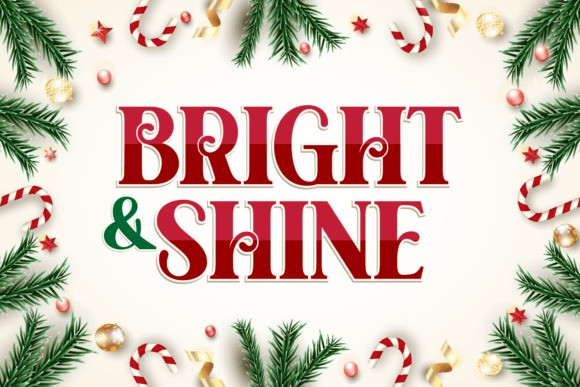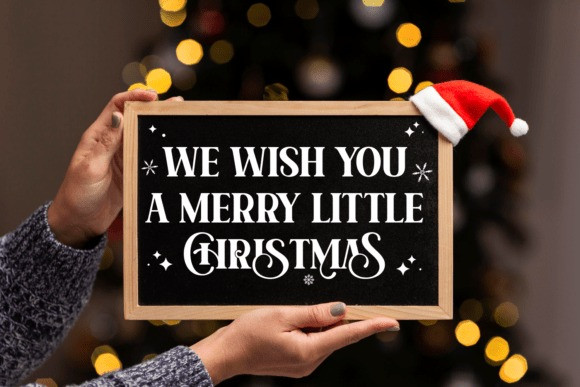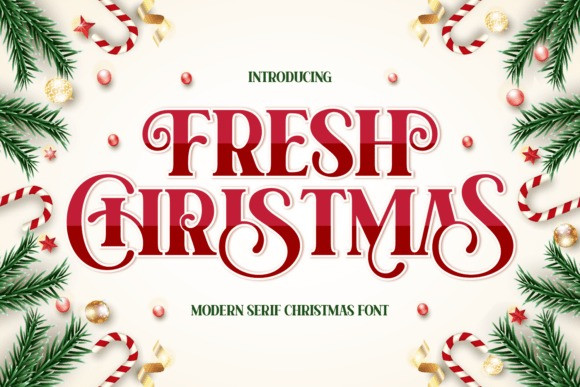
Fresh Christmas Serif Font
Fresh Christmas Serif Font is a gorgeous decorative font, that fits incredibly well to this time of the year. No matter the topic, this font will be an incredible asset to your fonts’ library, as it has the potential to elevate any creation.